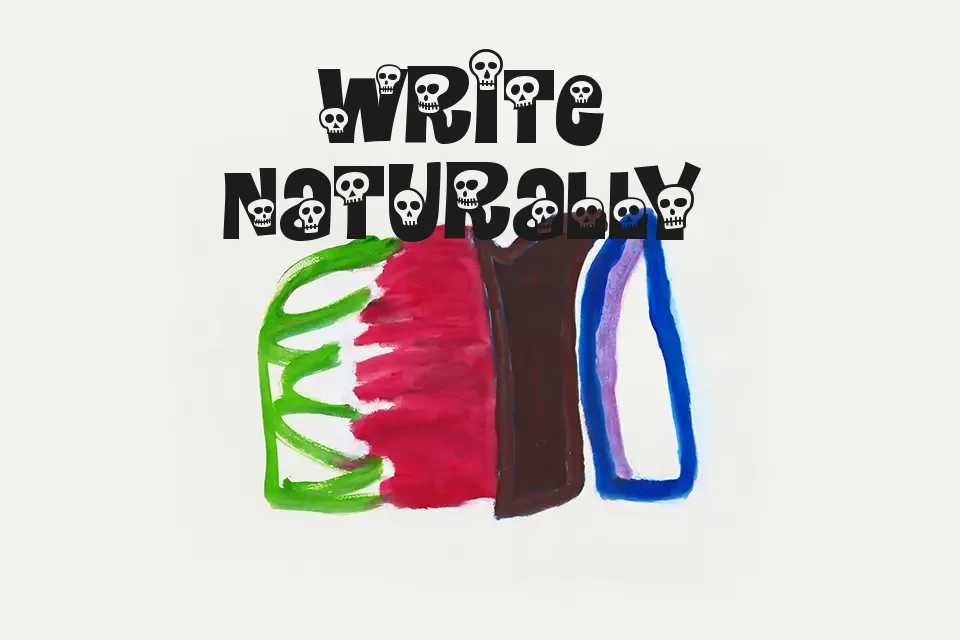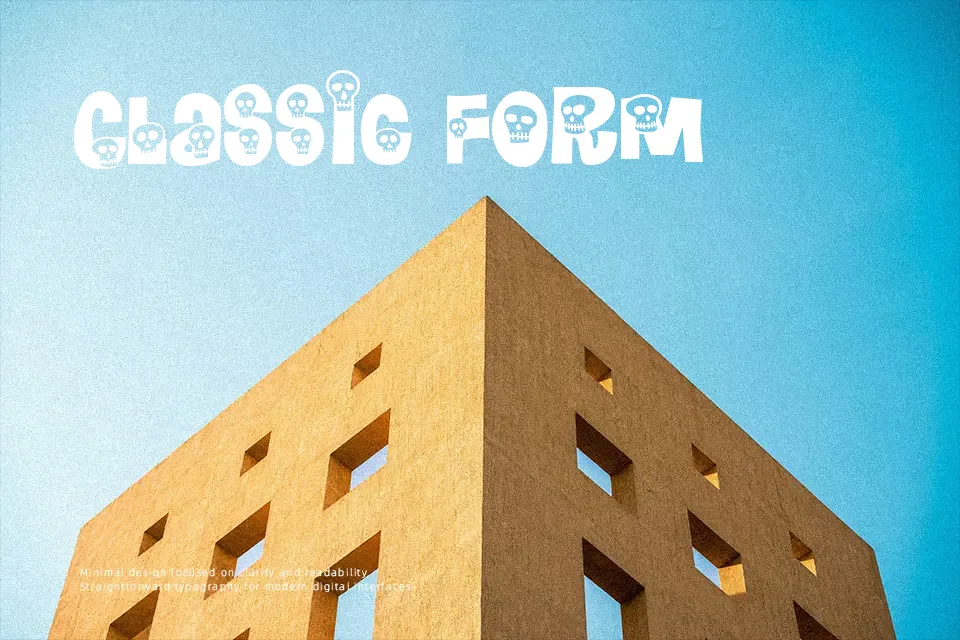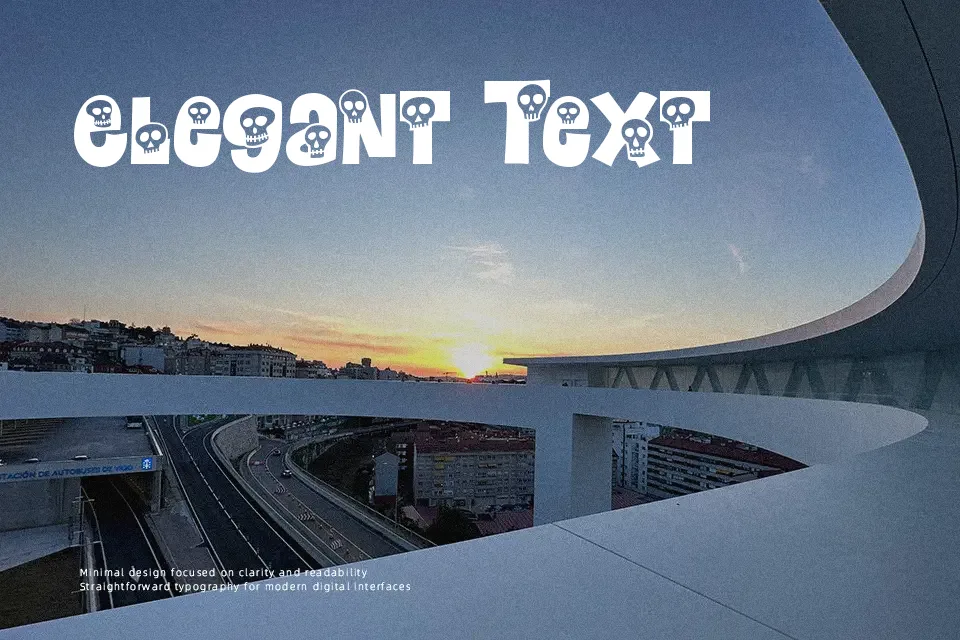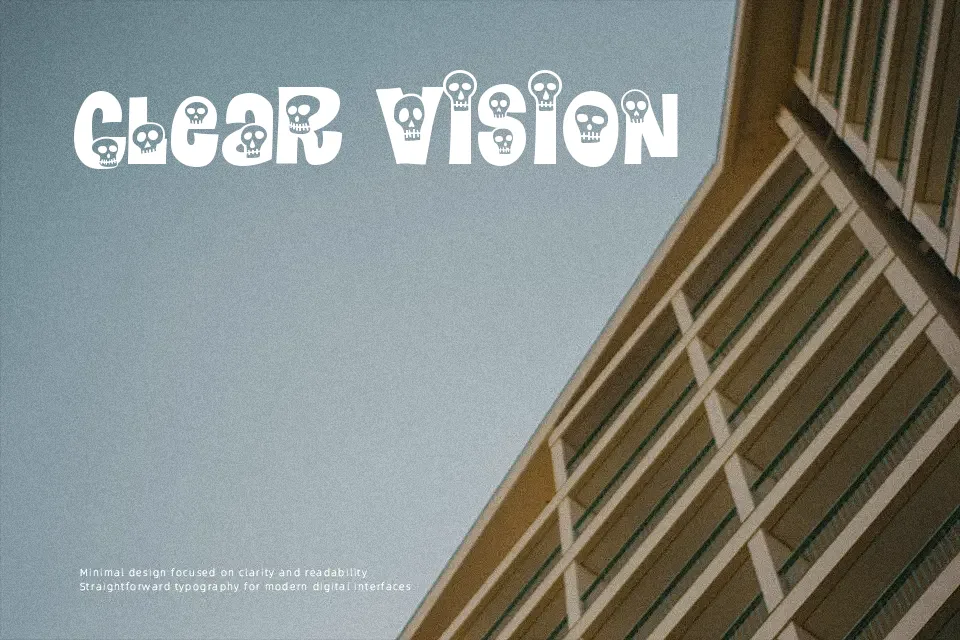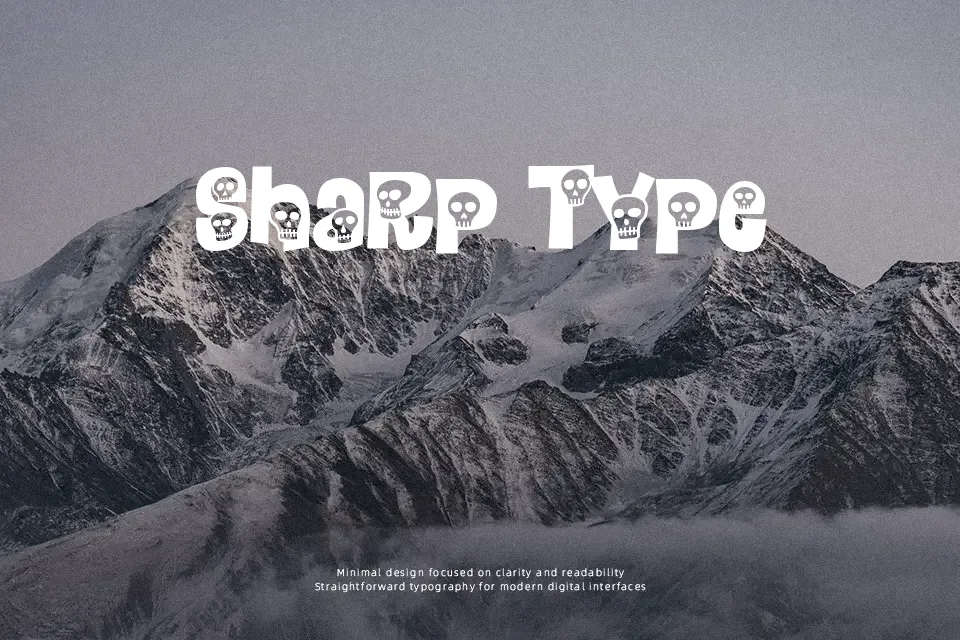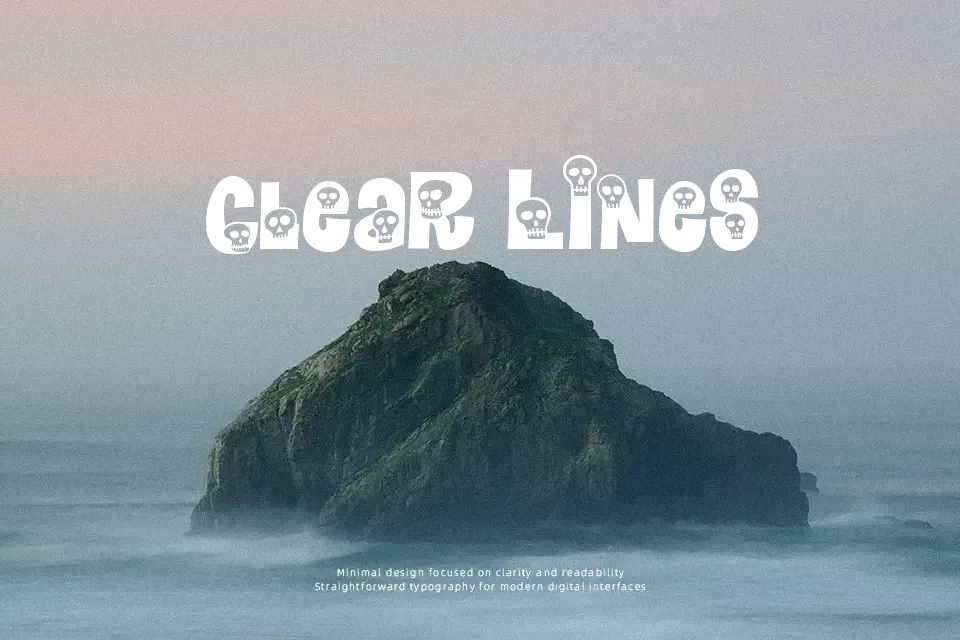
Calaveras Font
Calaveras leans on chunky, rounded letterforms that echo 1960s flower fonts, but each character is punched with small skull motifs that sit in the counters and curves. Strokes feel even and straightforward, with moderate spacing that keeps words legible despite all the ornament. The overall look is playful and a bit macabre, more decorative than refined, so it naturally pulls the eye in headlines rather than long reading. It works well when you want to signal Halloween events, Día de los Muertos celebrations, or any project that mixes lighthearted fun with a hint of darkness. On the other hand, it quickly becomes tiring in body copy, and it will clash with minimalist or very corporate branding.
Halloween flyers and posters
Día de los Muertos event graphics
Playful spooky merchandise and stickers
Themed party invitations and signage
Long paragraphs or editorial body text
Serious corporate branding or reports
Minimalist UI or app interfaces
Formal wedding or luxury fashion layouts
Perfect for halloween, headline, and holiday, with a artistic and decorative style.